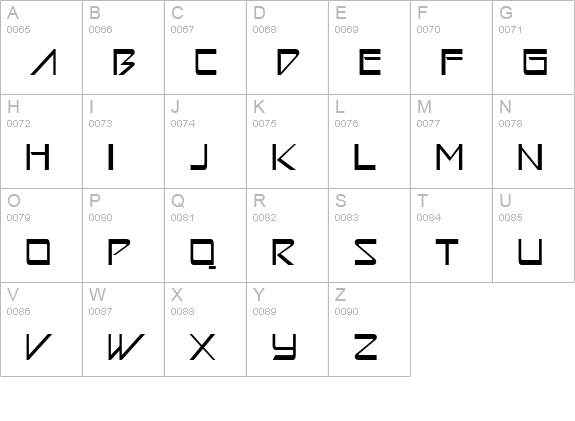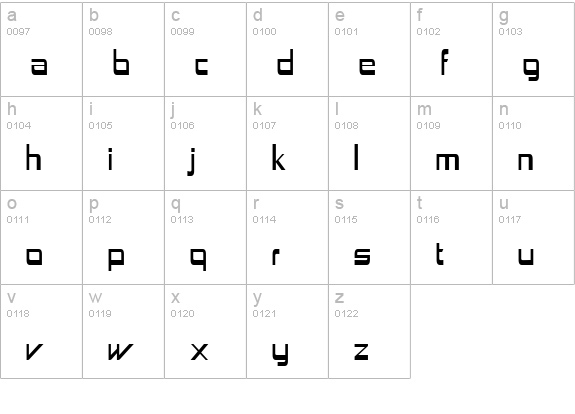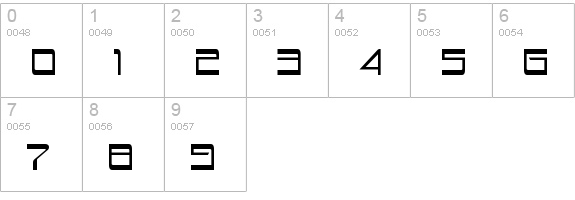
TR Astron Boy font is a unique and futuristic typeface that combines sleek, modern design with a touch of retro charm. With its clean lines and geometric shapes, this font is perfect for projects that require a bold and eye-catching look. Whether you're designing a poster, logo, or website, TR Astron Boy will make your text stand out and grab the attention of your audience. The best part about TR Astron Boy font is that it is completely free to download at FontsMarket.com. You can easily add this stylish font to your collection without having to worry about any costs. So why wait? Enhance your designs with TR Astron Boy font today and take your projects to the next level!